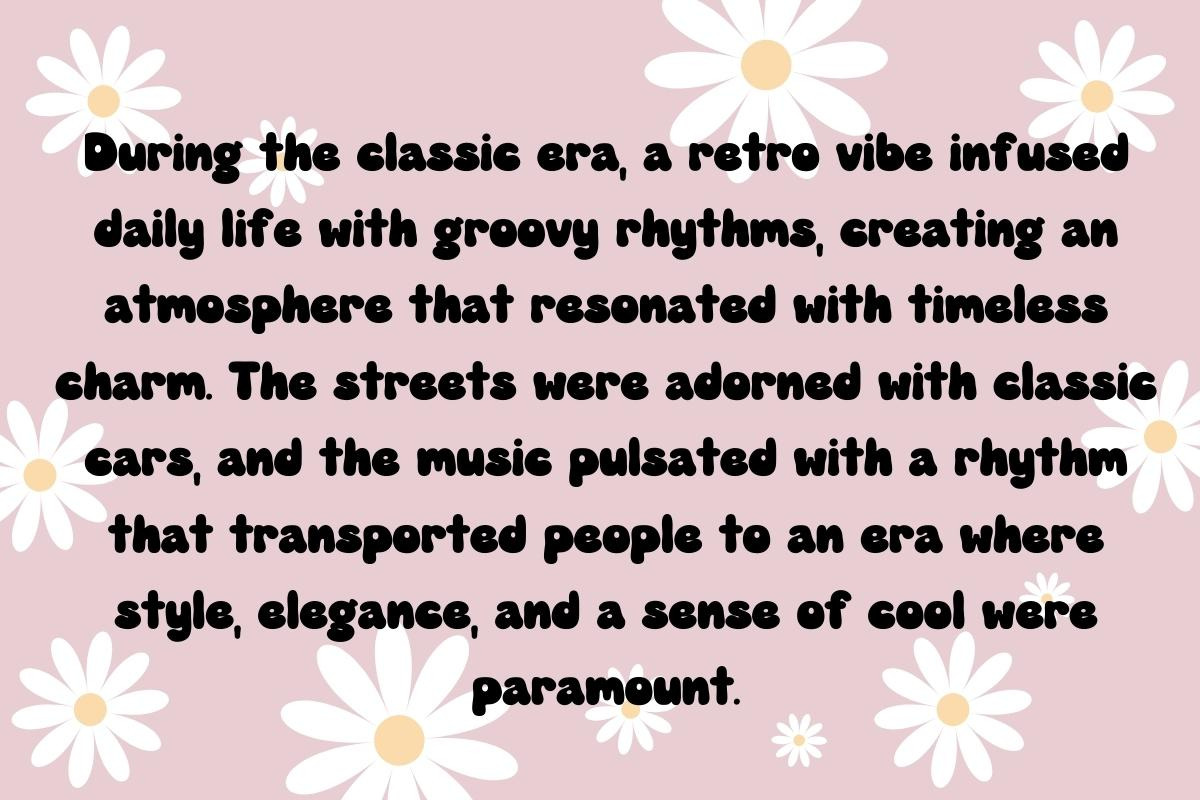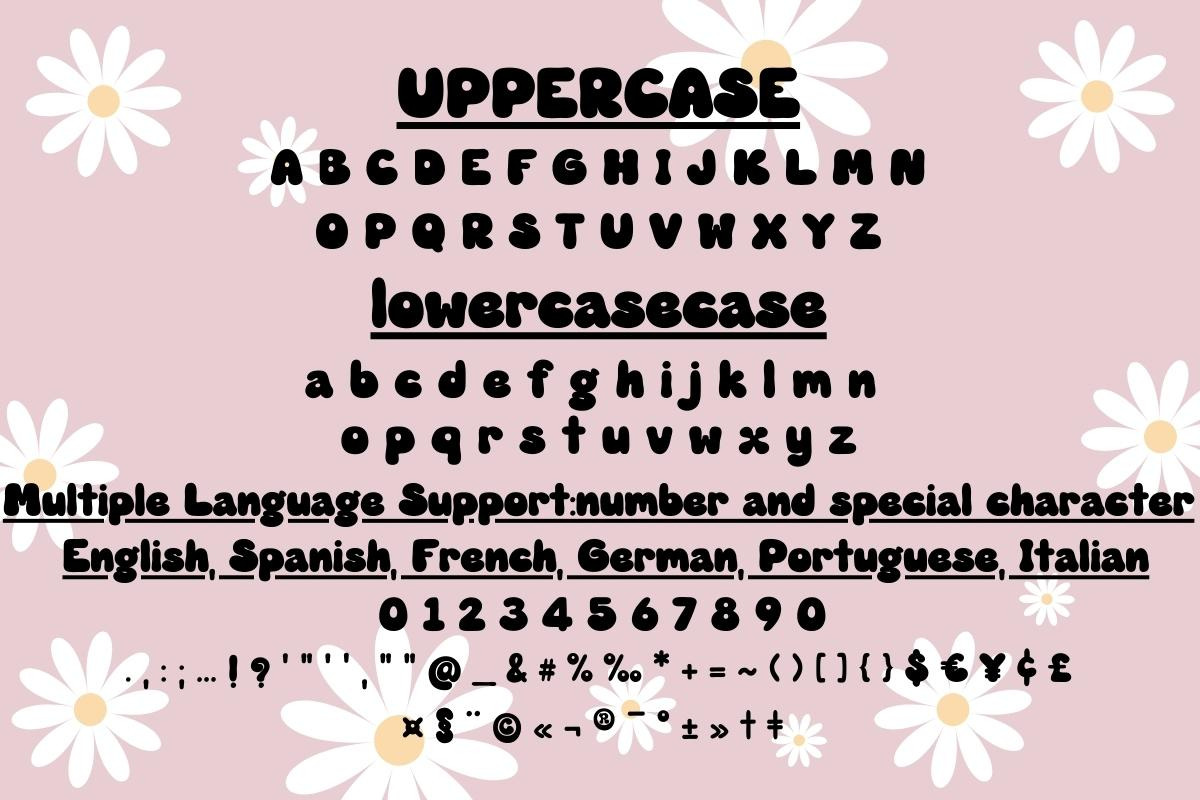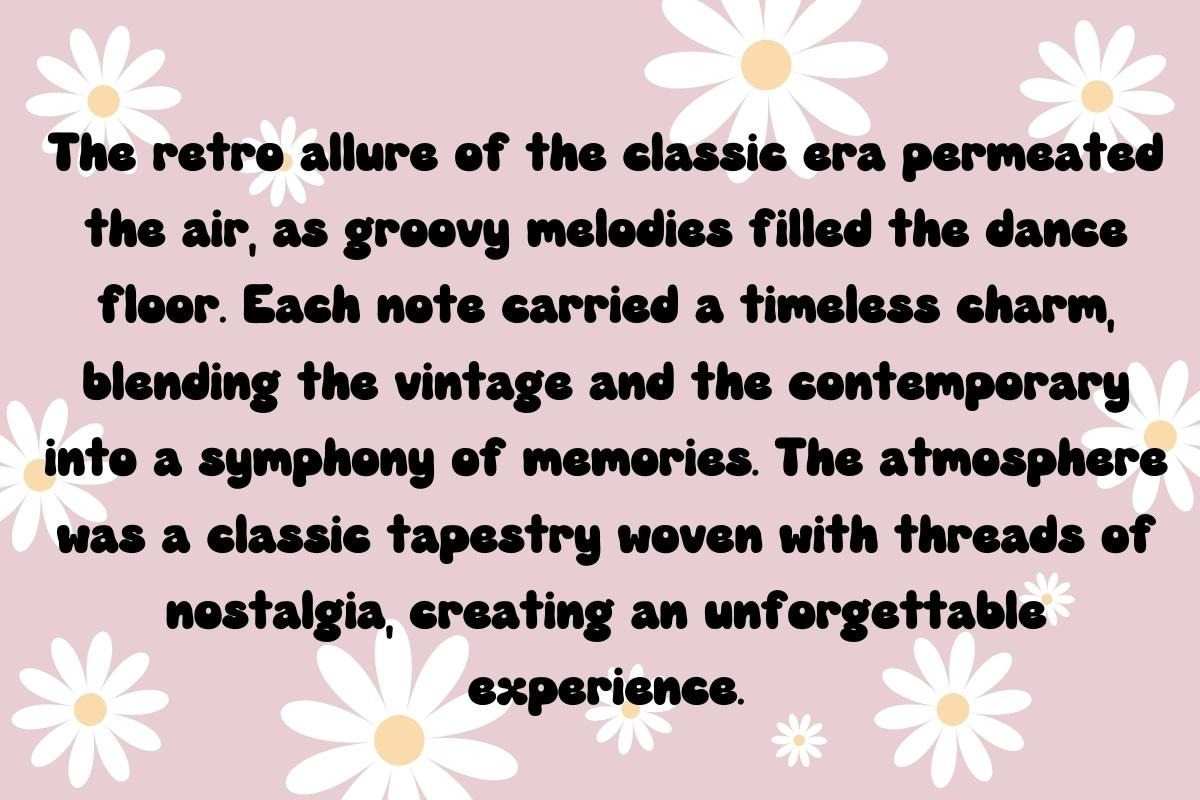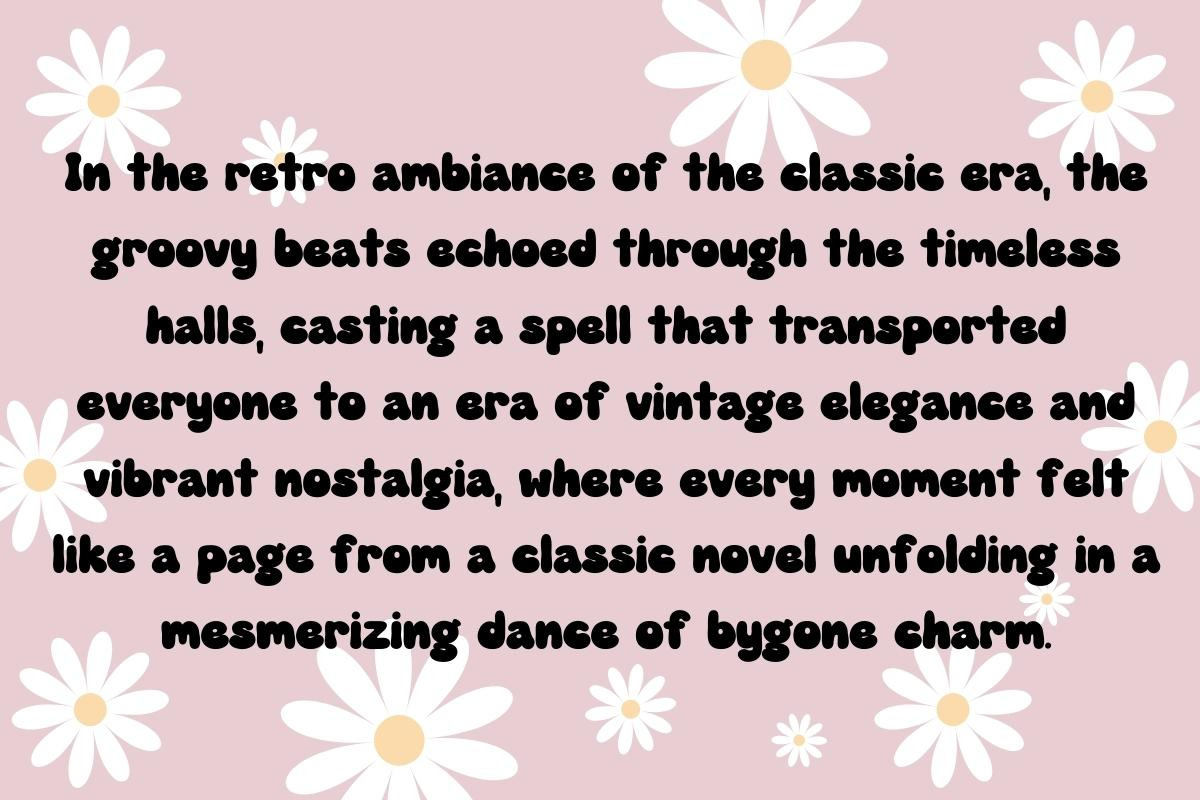
Groovy Good Vibes - Handwritting
"Step into a world where letters dance with joy and curves groove to the rhythm of style. Introducing 'Groovy Good Vibes,' a font that whispers whimsy and shouts positivity. Let your words shimmy and shake with character. Dive into the font party and let your creativity dance in delightful serifs and sways!"